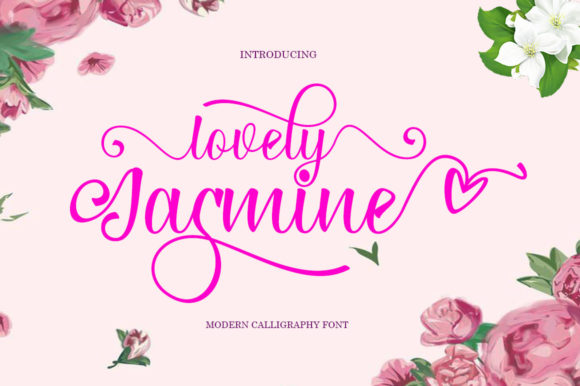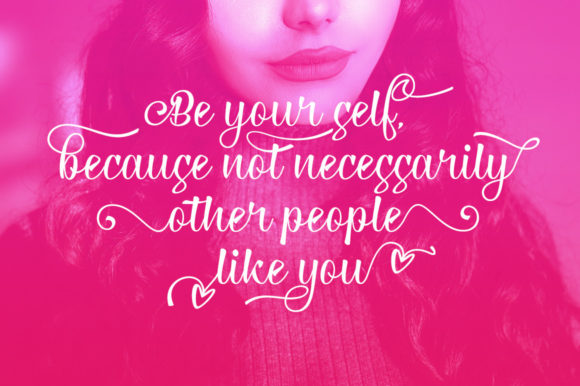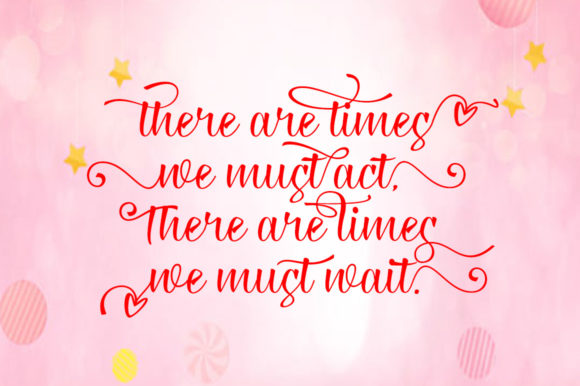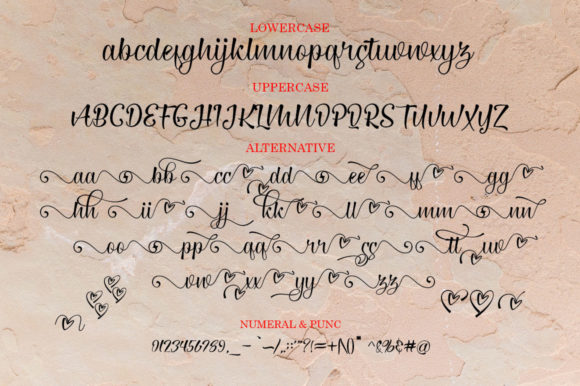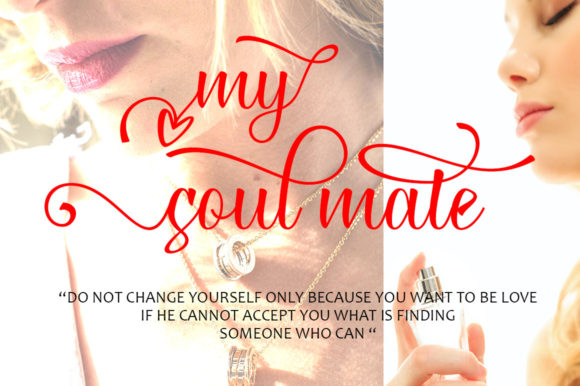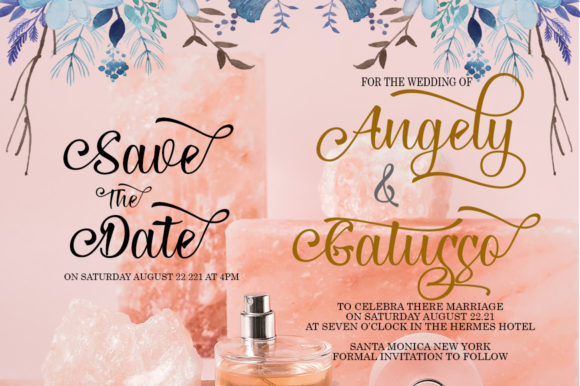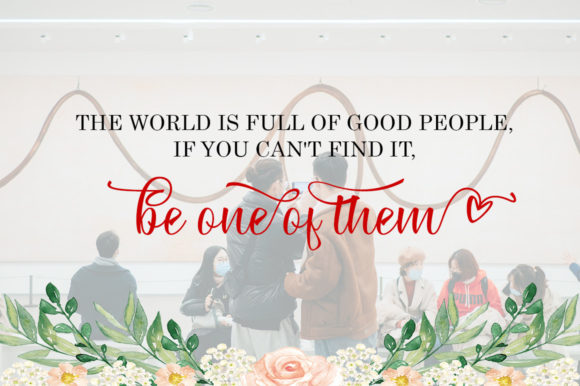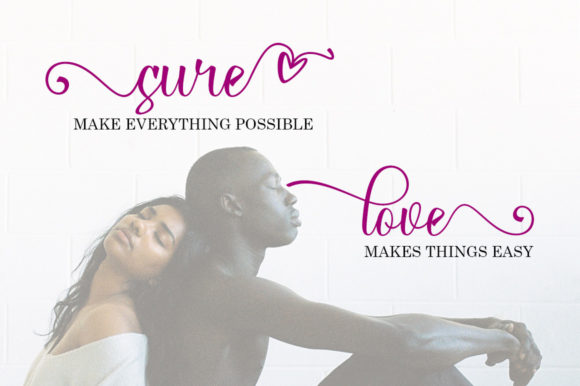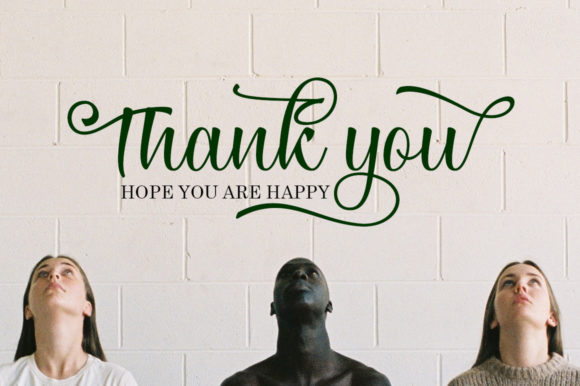
Lovely Jasmine Font
About Lovely Jasmine Font
Lovely Jasmine is a breathtaking handwritten font that exudes beauty and elegance. With its light and delicate letterforms, this font brings a unique touch to any design project, leaving a lasting impact.
The unique feel of Lovely Jasmine stems from its graceful and flowing style. Each character is meticulously crafted, capturing the essence of hand-drawn calligraphy. The result is a font that is both refined and enchanting, creating a sense of luxury and sophistication.
When incorporated into your design projects, Lovely Jasmine adds a touch of elegance and charm. It is particularly well-suited for creating stunning logos, branding materials, wedding invitations, and other projects that require a sophisticated and romantic aesthetic. Its versatility allows it to be used across various design mediums, from print to digital.
One of the standout features of Lovely Jasmine is its extensive set of glyphs and ligatures, all conveniently accessible through the font’s PUA encoding. This means you have easy access to a wide range of alternate characters, swashes, and ligatures, allowing for endless possibilities and customization. Whether you want to add decorative flourishes, stylish swashes, or unique letter combinations, Lovely Jasmine provides the tools to bring your design vision to life.
In summary, Lovely Jasmine is a beautiful and refined handwritten font that adds a touch of luxury and impact to your design projects. With its unique feel, extensive glyph set, and PUA encoding, this font allows for creative expression and customization. Whether you’re creating logos, branding materials, wedding invitations, or other designs, Lovely Jasmine is sure to captivate and leave a lasting impression.